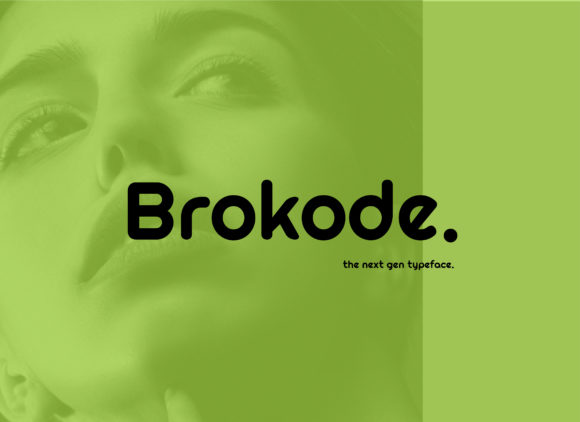
The Brokode Modern Typeface Font: A Designer’s New Best Friend
I’ll never forget the struggle I faced while working on a project for a trendy client. The brief was simple: create a bold, modern visual identity that would make their brand stand out in a crowded market. But, as I scrolled through my font library, I couldn’t find the perfect match. That’s when I stumbled upon the Brokode Modern Typeface Font. It was love at first sight! ✨
In this article, I’ll share my experience with Brokode, its features, and how to make the most of it in your designs. Whether you’re a designer, crafter, or creative hobbyist, you’ll learn how to harness the power of this versatile font.
An Honest Review of Brokode
- ✅ Clean and modern aesthetic: Brokode’s sans serif design makes it perfect for projects that require a fresh, contemporary look.
- ✅ Highly versatile: This font can be used in a wide range of projects, from branding and advertising to digital media and print materials.
- ✅ Easy to read: Brokode’s clear and legible design ensures that your message gets across, even at smaller font sizes.
- ✨ OpenType features: Brokode supports a range of OpenType features, including stylistic alternates, ligatures, and more.
While Brokode is an excellent font, it’s not perfect. Here are a few things to keep in mind:
- ⚠️ Limited italic support: Brokode’s italic styles are not as comprehensive as some other fonts, which might be a limitation for certain projects.
- 🤔 Not ideal for body text: While Brokode is legible, it’s not the best choice for long-form body text due to its modern, design-focused aesthetic.
The Story Behind Brokode
Brokode was designed by a team of creatives who wanted to create a modern, versatile font that would meet the needs of designers and non-designers alike. Inspired by the latest design trends and typography principles, Brokode is the result of careful craftsmanship and attention to detail.
Q: Is Brokode suitable for body text?
A: While Brokode is legible, it’s not the best choice for long-form body text due to its modern, design-focused aesthetic.